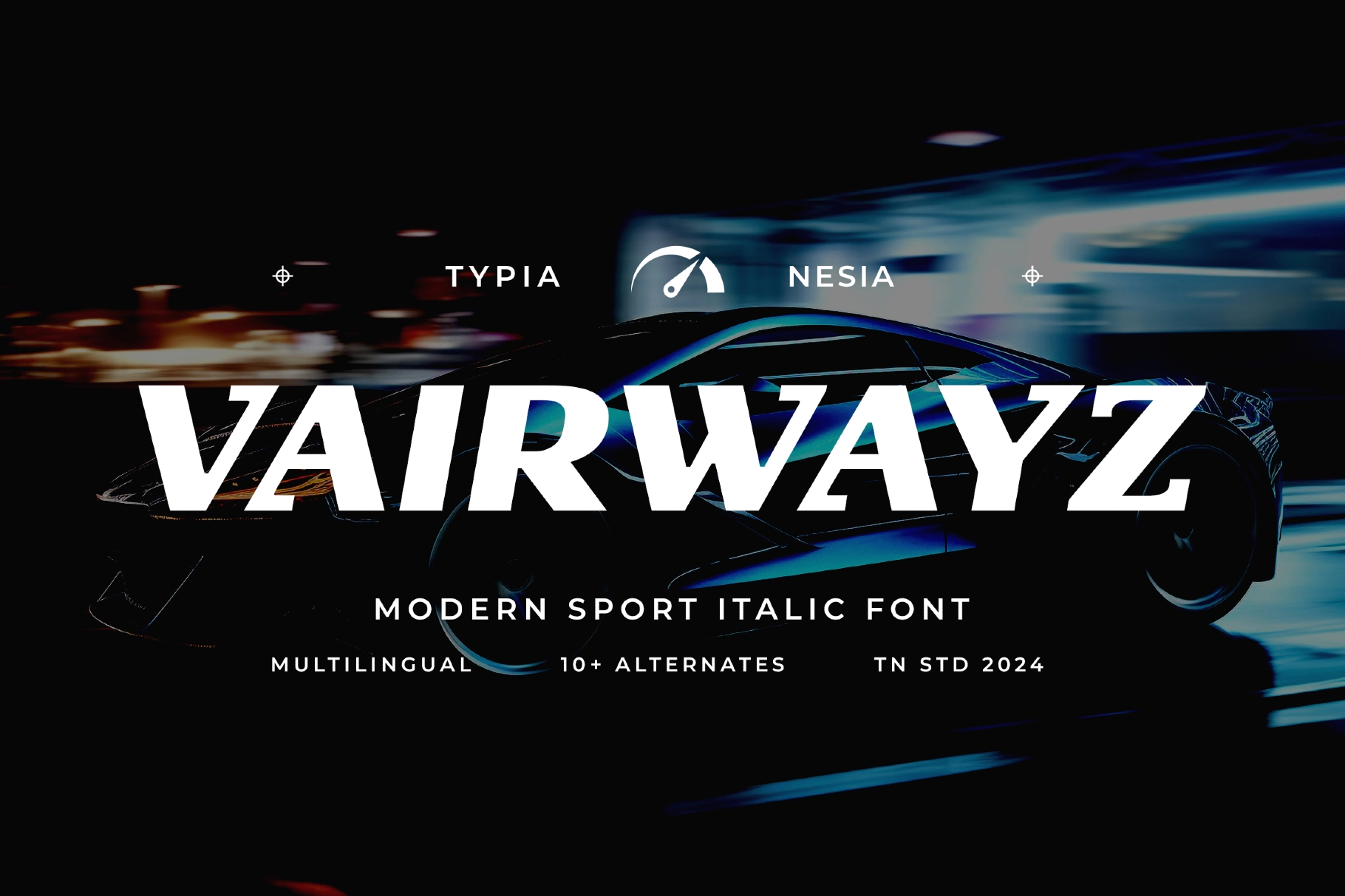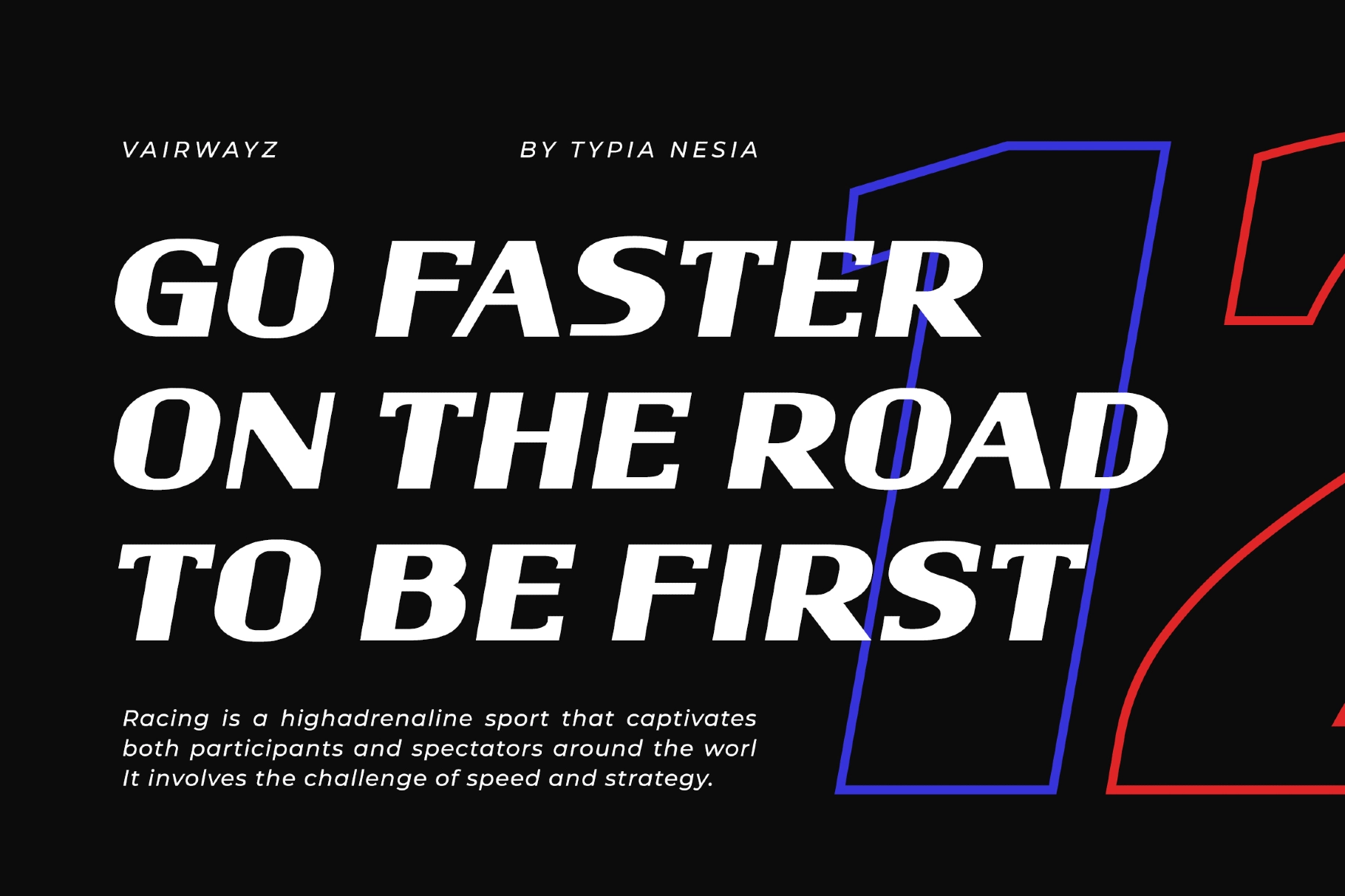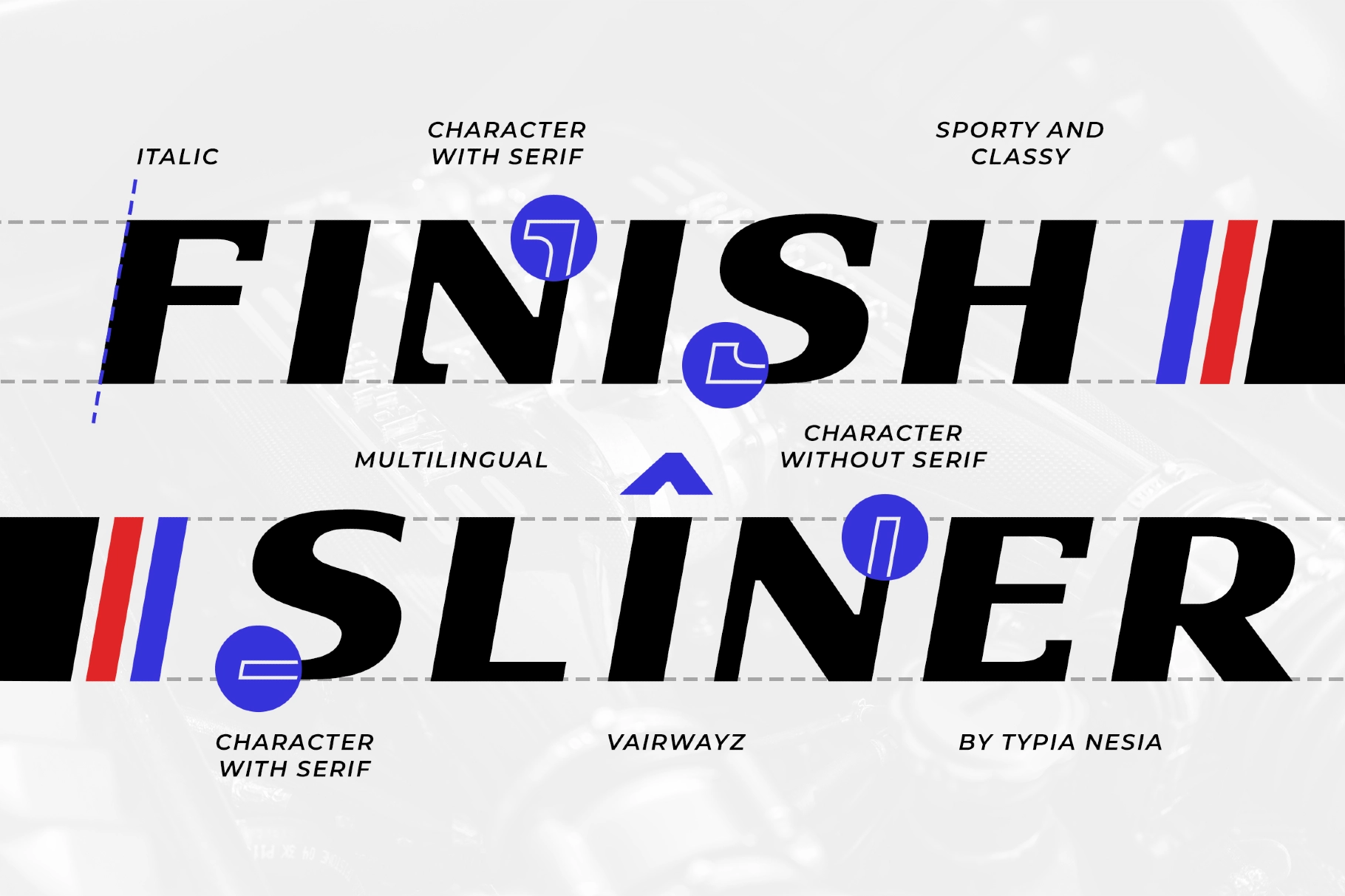
Vairwayz - Sport Italic Font
Vairwayz is a Modern Sport Italic Font designed to embody energy, movement, and strength. With bold, angled lines and an italicized stance, Vairwayz brings a dynamic and futuristic look to any project, capturing the modern essence of sports and racing. This font's bold, assertive style is perfect for high-impact branding, such as sports branding, apparel, team logos, video game titles, digital media, sport racing, super car brands, esports branding, game / gaming industry, modern advertising, banners, posters, and any project to promotional materials targeting the sports and active lifestyle markets. Perfect for designers aiming for a bold, competitive aesthetic, Vairwayz brings an energetic flair to modern sports and high-tech brand identities.